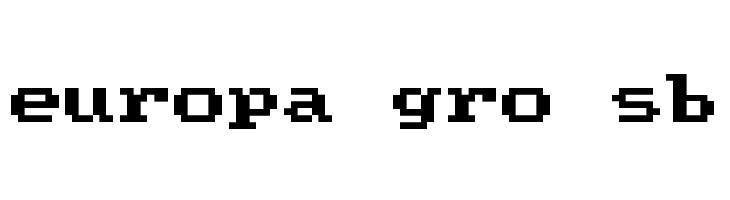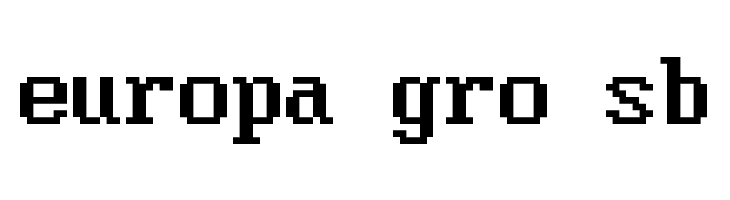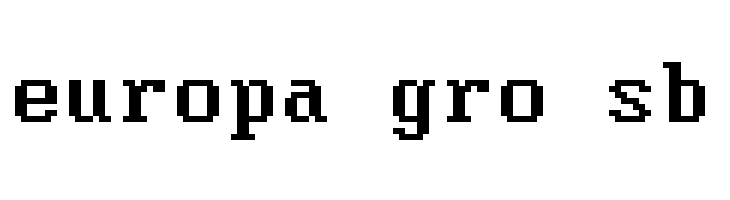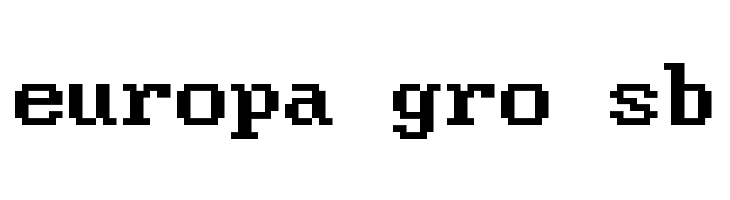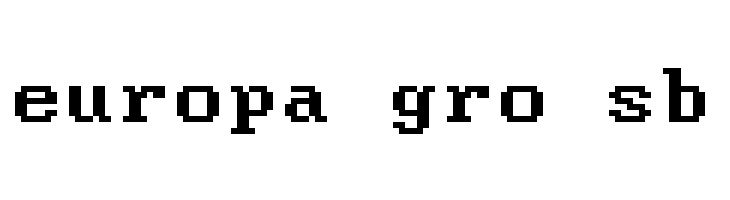
( Jayvee Enaguas )
A pixelated, monospaced font inspired by classic DOS interfaces.
( Jayvee Enaguas )
A pixelated, monospaced font with a retro, digital aesthetic.
( Jayvee Enaguas )
A pixelated, monospaced typeface inspired by classic DOS interfaces.
( Jayvee Enaguas )
A pixelated, monospaced typeface with a retro digital aesthetic.
( Jayvee Enaguas )
A pixelated, monospaced font with a retro, digital style.
( Jayvee Enaguas )
A pixelated, monospaced typeface inspired by classic DOS displays.
( Jayvee Enaguas )
A pixelated, monospaced font with a retro, digital aesthetic.
( Jayvee Enaguas )
A pixelated, retro-style font inspired by classic computer graphics.
( Jayvee Enaguas )
A pixelated, retro-style font inspired by early computer displays.